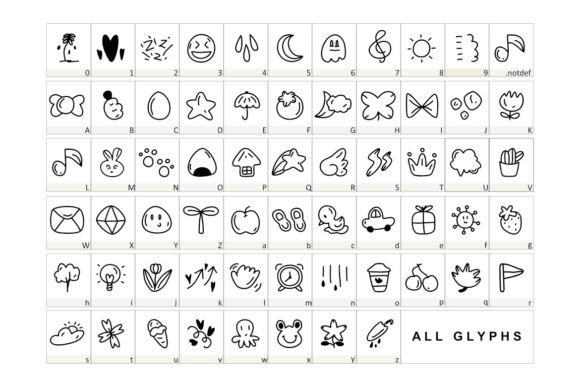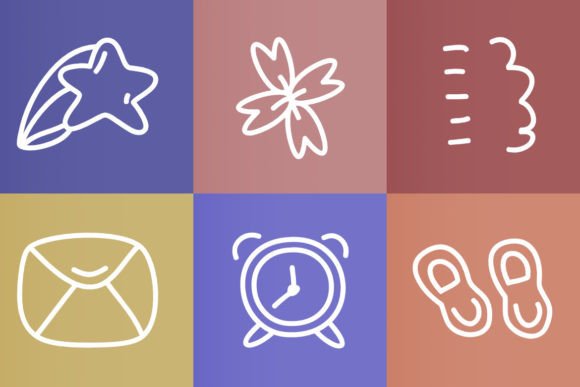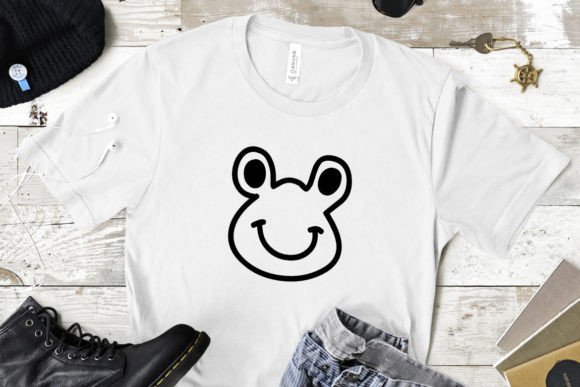
Introduction to Comical Font
Comical is a cute and useful dingbats font perfect for a wide variety of projects.
Use it for stickers, posters, t-shirts, cards, apparel graphics, etc ; you will love the results.
Key Features of Comical Font
Why Choose Comical Font?
Comical Font offers exceptional quality and versatility, making it a valuable addition to your design toolkit. Whether you’re creating for personal projects or commercial use, Comical Font delivers professional results.